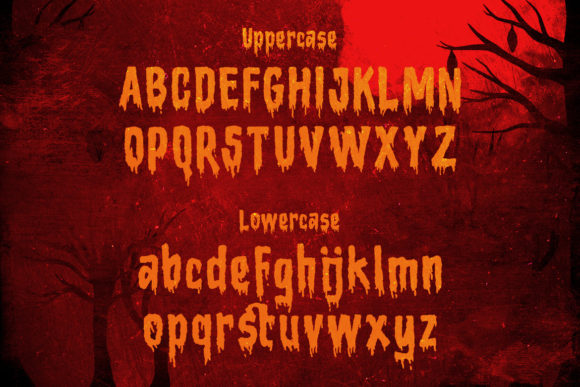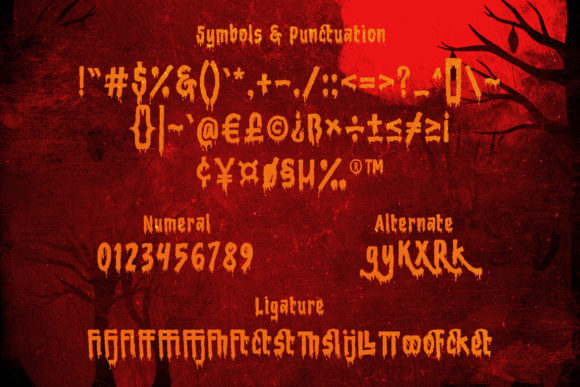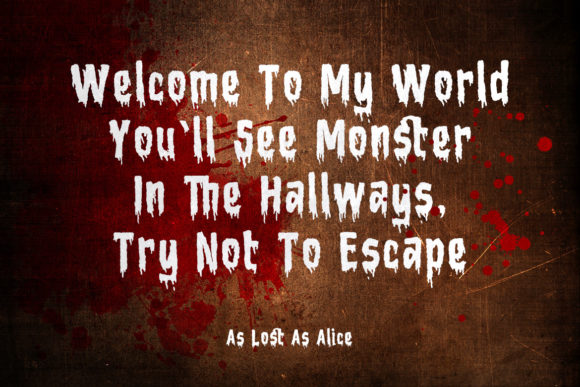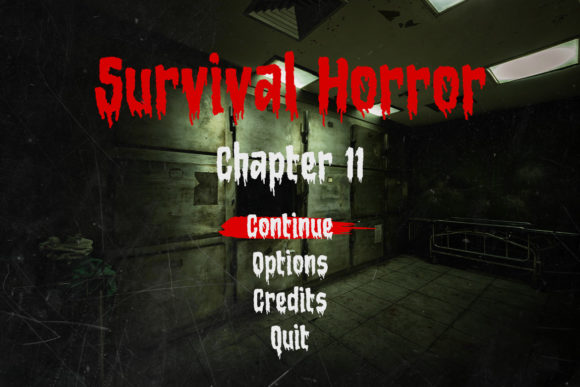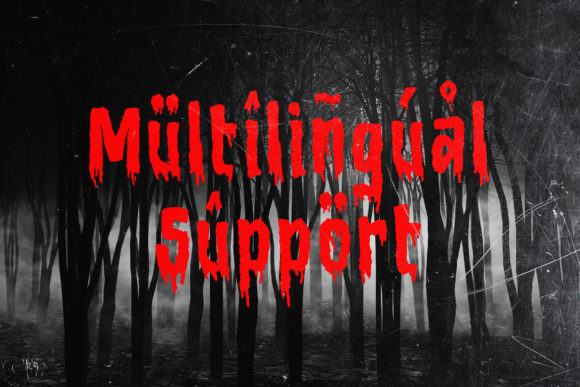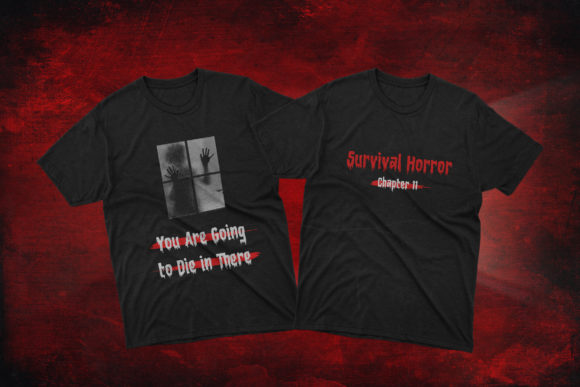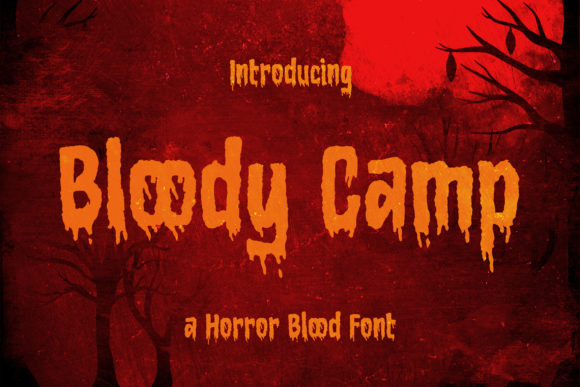
The Bloody Camp Font: A Spooky Addition to Your Design Arsenal
A Personal Review: What I Love (and Love to Hate) About Bloody Camp
As a designer, I’m always on the lookout for fonts that can help me stand out from the crowd. Bloody Camp definitely delivers on that front. Here’s what I love about it:
- ✨ Unique character design: The melting, irregular shapes of the letters give off a seriously spooky vibe that’s perfect for horror-themed projects.
- ✅ Highly versatile: Whether you’re working on a thriller movie poster, a Halloween invitation, or a spooky t-shirt design, Bloody Camp fits the bill.
- 🔥 Attention-grabbing: This font is sure to turn heads and leave a lasting impression on your audience.
Of course, no font is perfect, and Bloody Camp does have a few quirks:
- 🤔 Limited legibility: Due to its decorative nature, Bloody Camp can be a bit tricky to read at smaller font sizes or in longer blocks of text.
- ⚠️ Glyph limitations: While the font comes with a range of glyphs and stylistic alternates, it’s not as extensive as some other fonts on the market.
The Story Behind Bloody Camp
Rumor has it that Bloody Camp was inspired by a late-night horror movie marathon, where the designer was captivated by the eerie, melting effects of a particular film’s title sequence. From there, Bloody Camp was born – a font that’s equal parts creepy and fascinating.
| What type of projects is Bloody Camp best suited for? | Bloody Camp is perfect for thriller projects, Halloween invitations, horror games, spooky t-shirts, or any other scary crafts! |
| Is Bloody Camp easy to read? | While Bloody Camp is a beautiful font, it’s not the most legible due to its decorative nature. It’s best used in moderation or at larger font sizes. |
| Does Bloody Camp come with any additional features or glyphs? | Yes, Bloody Camp features a range of glyphs and stylistic alternates to help you customize your design. Experiment with different OpenType features to unlock its full potential! |